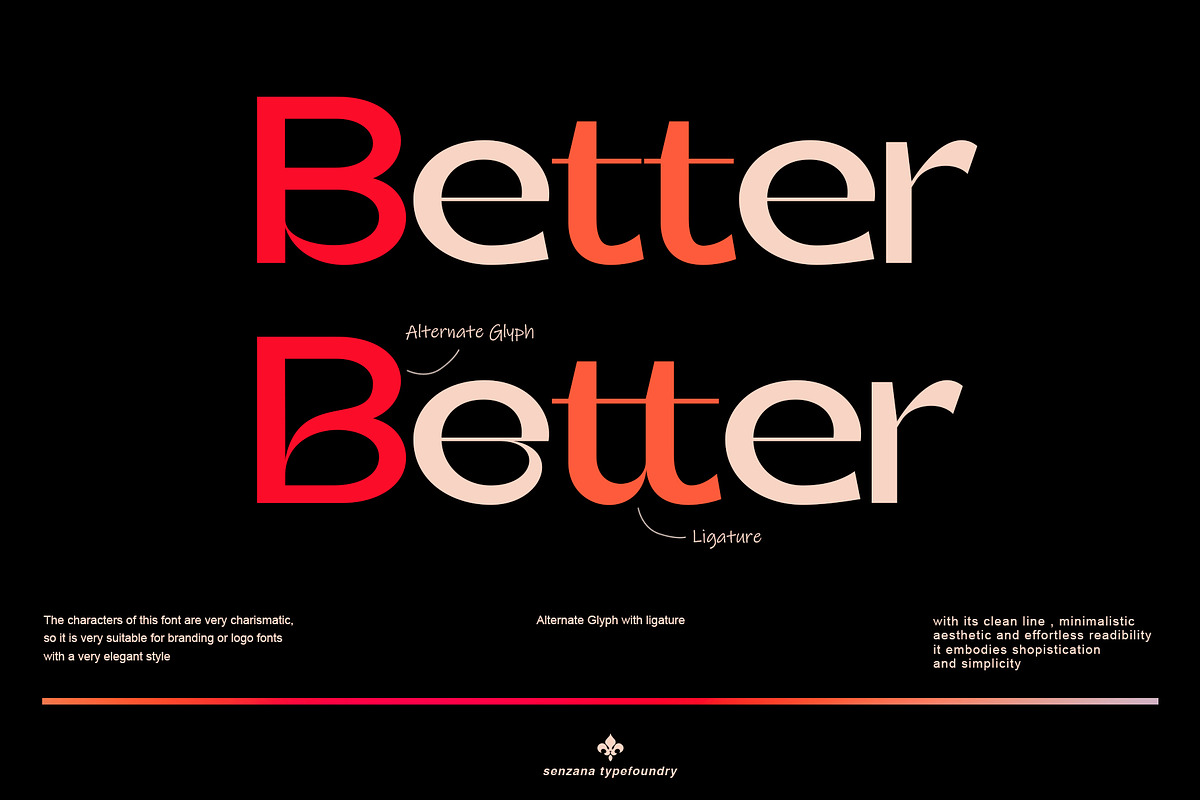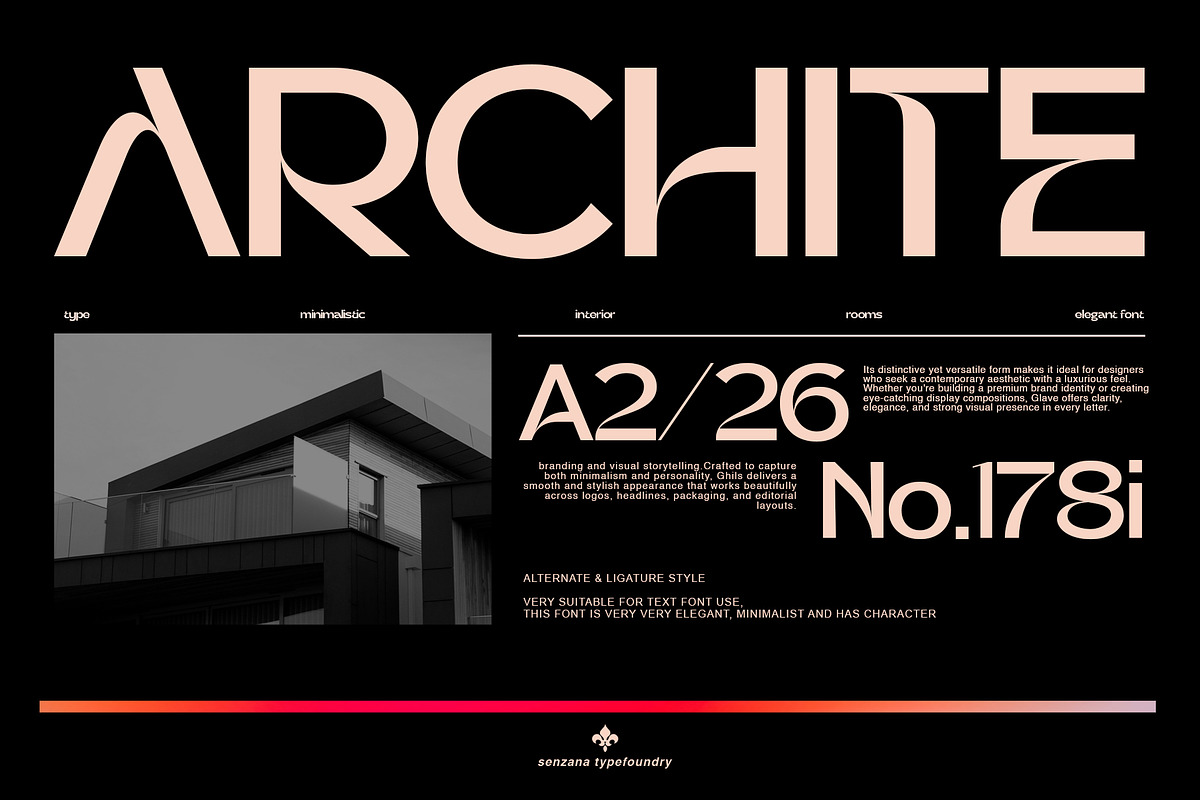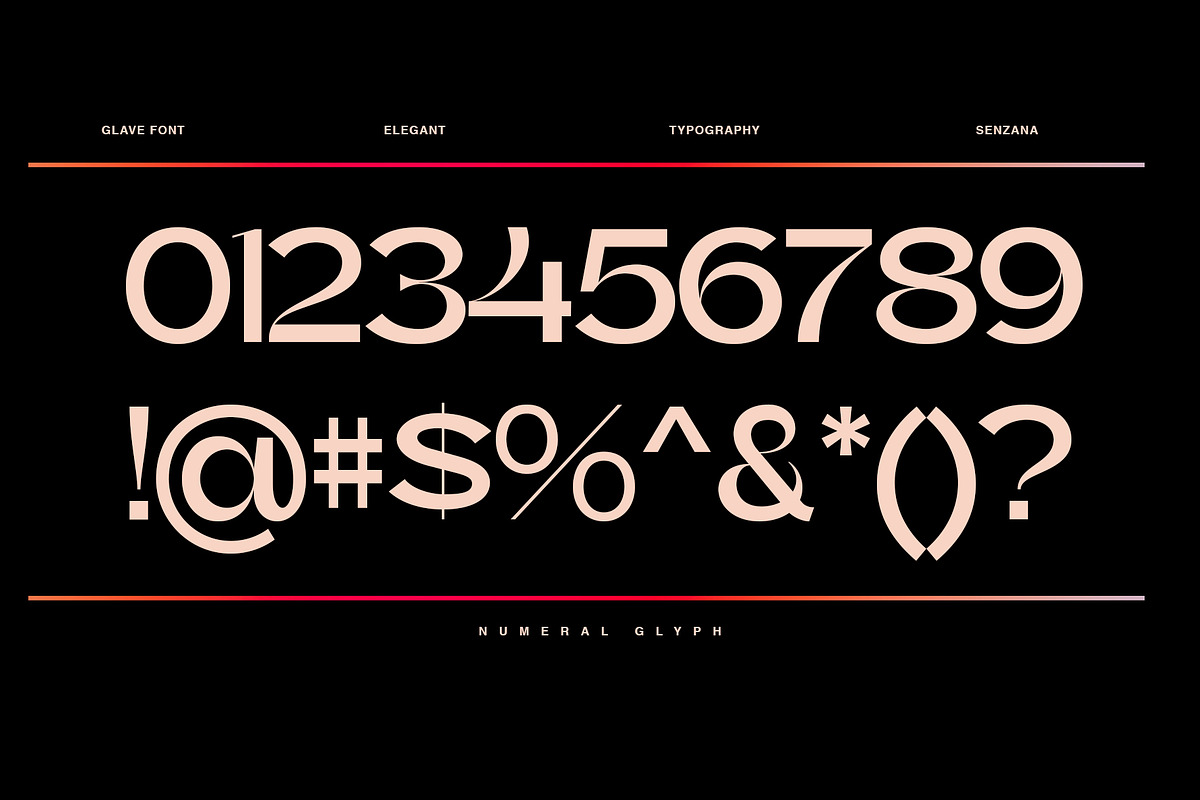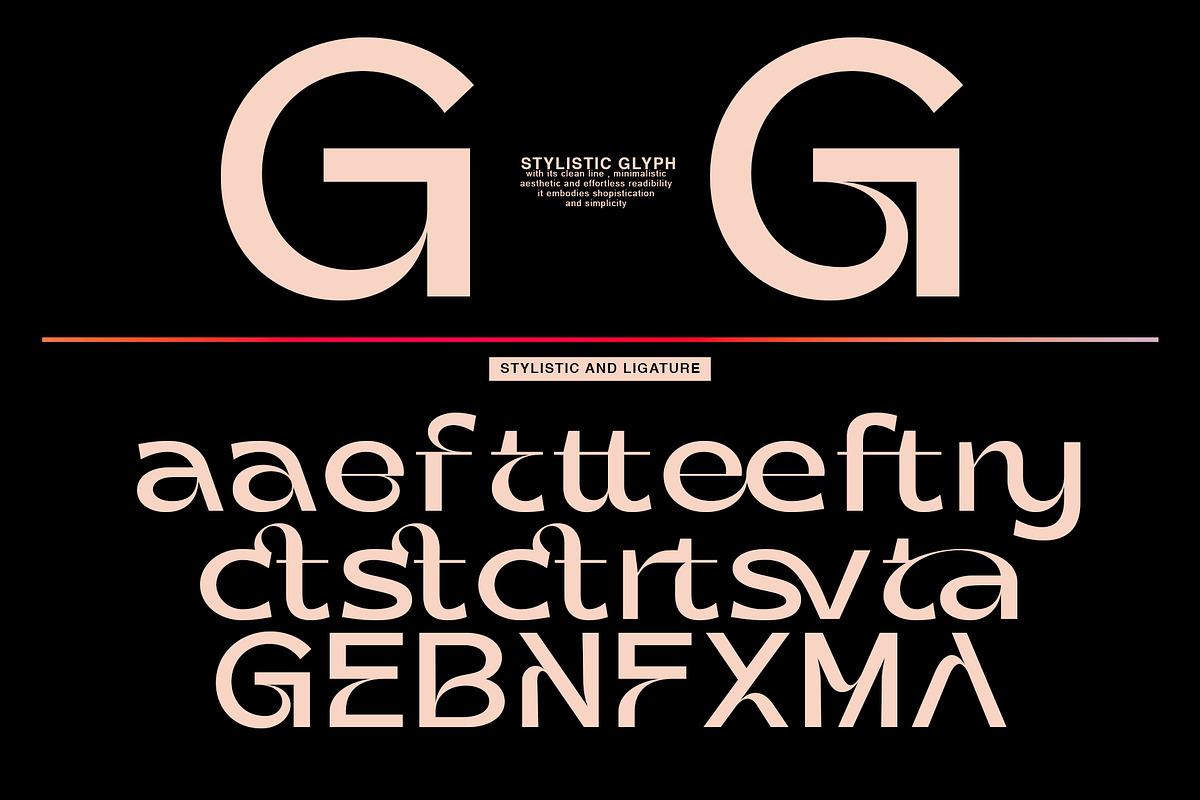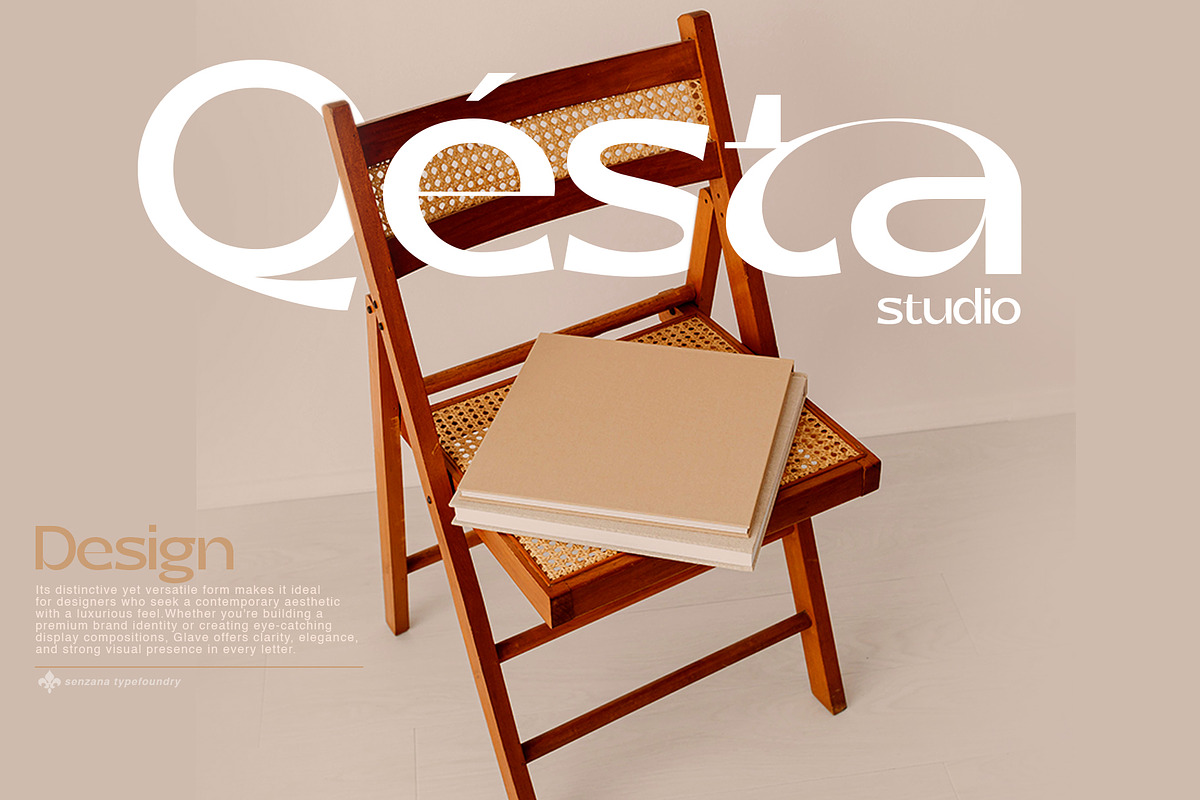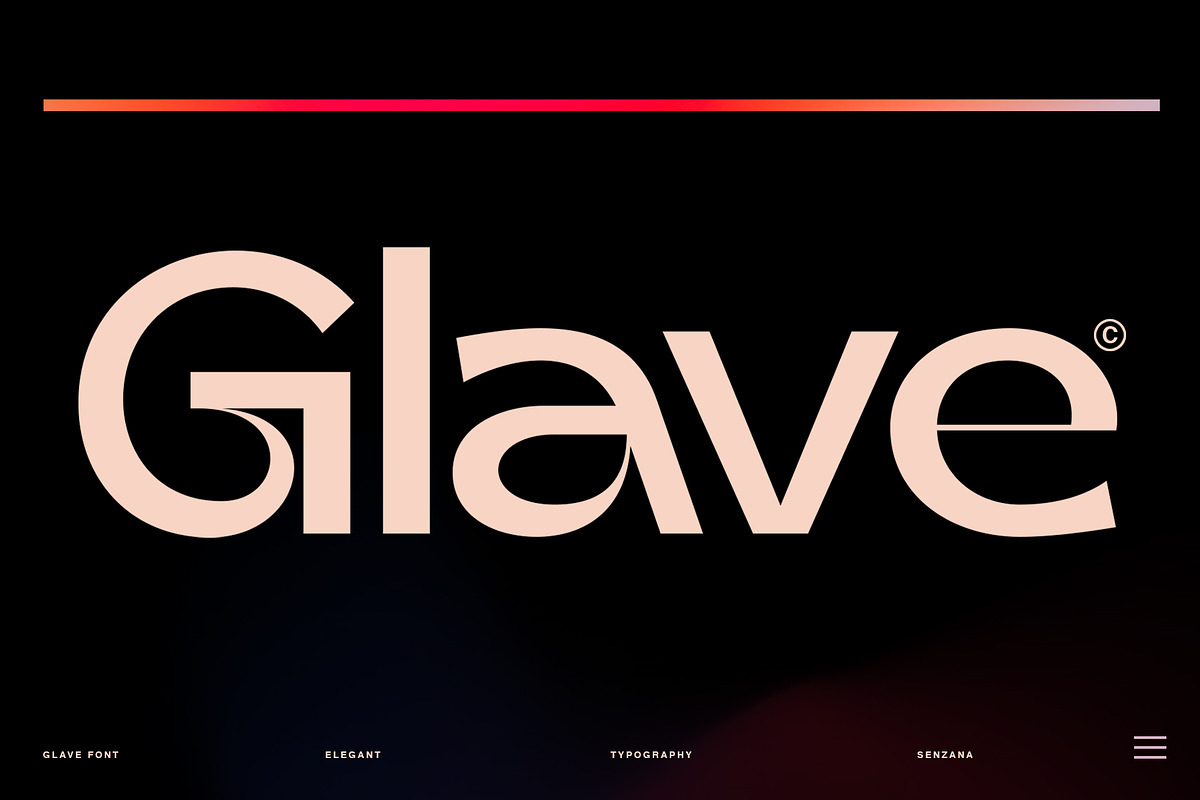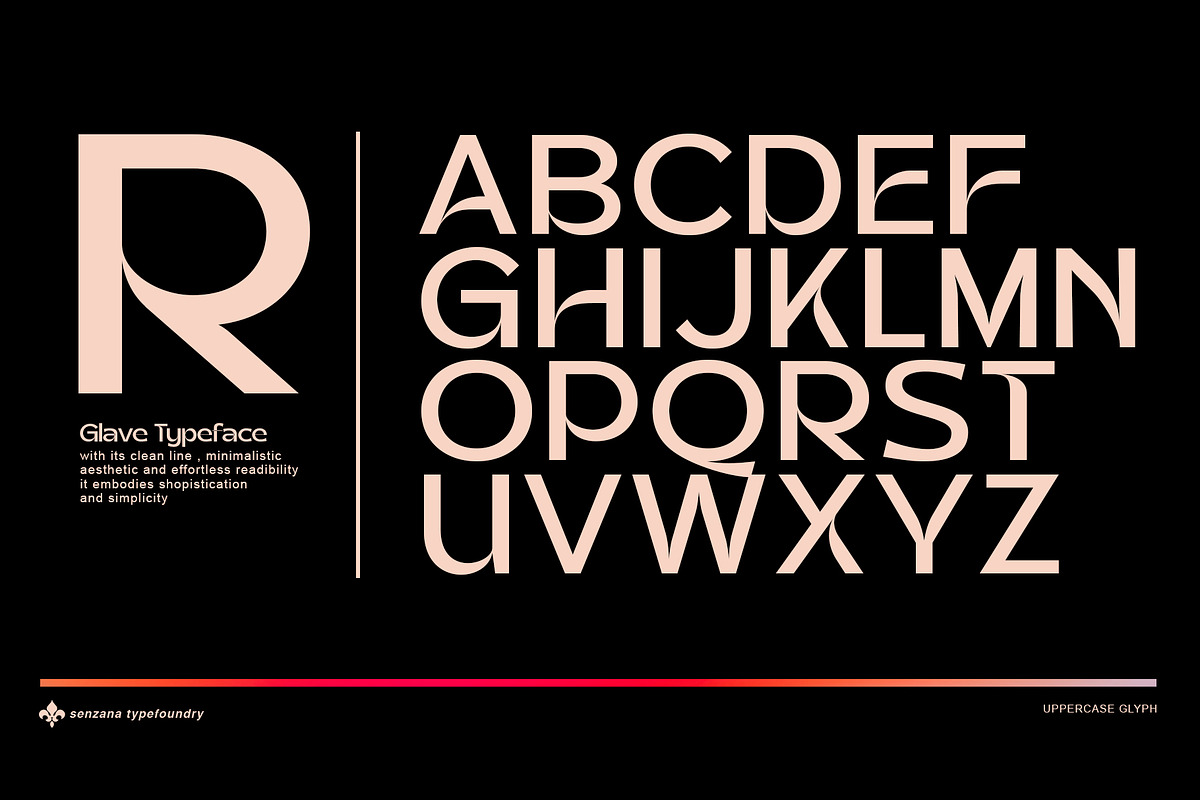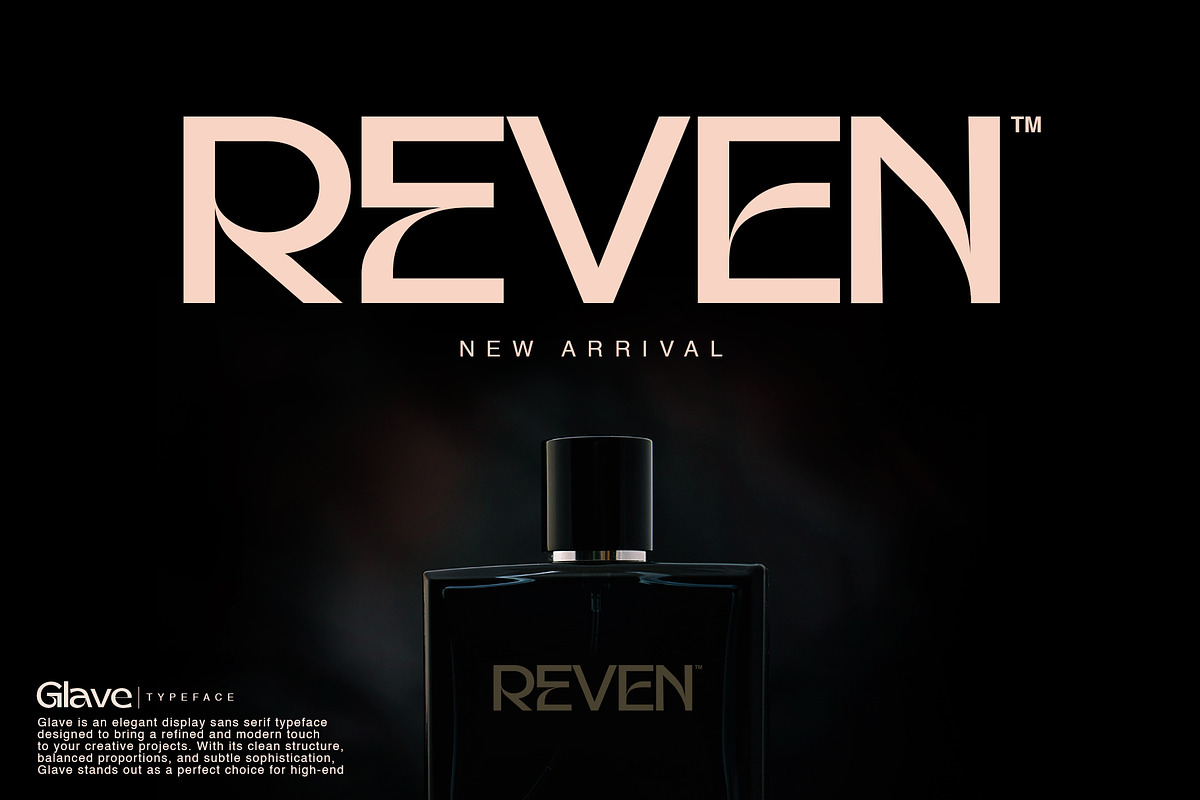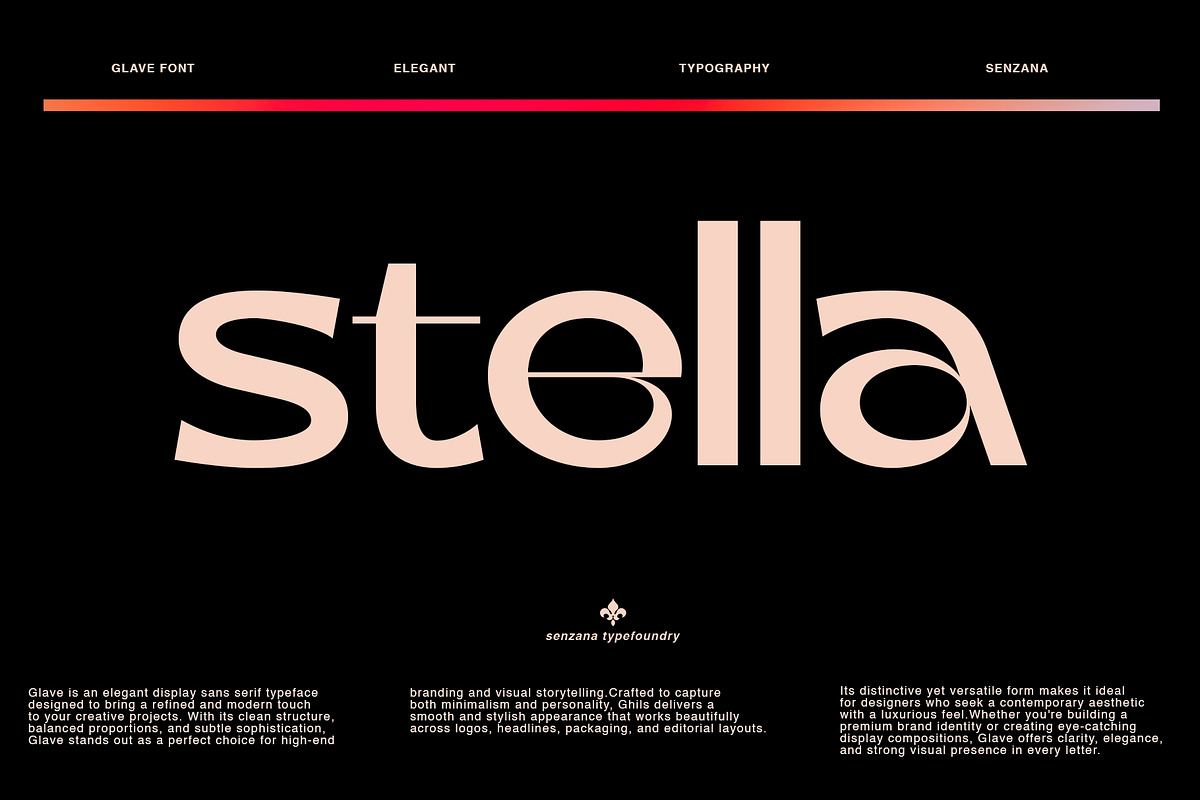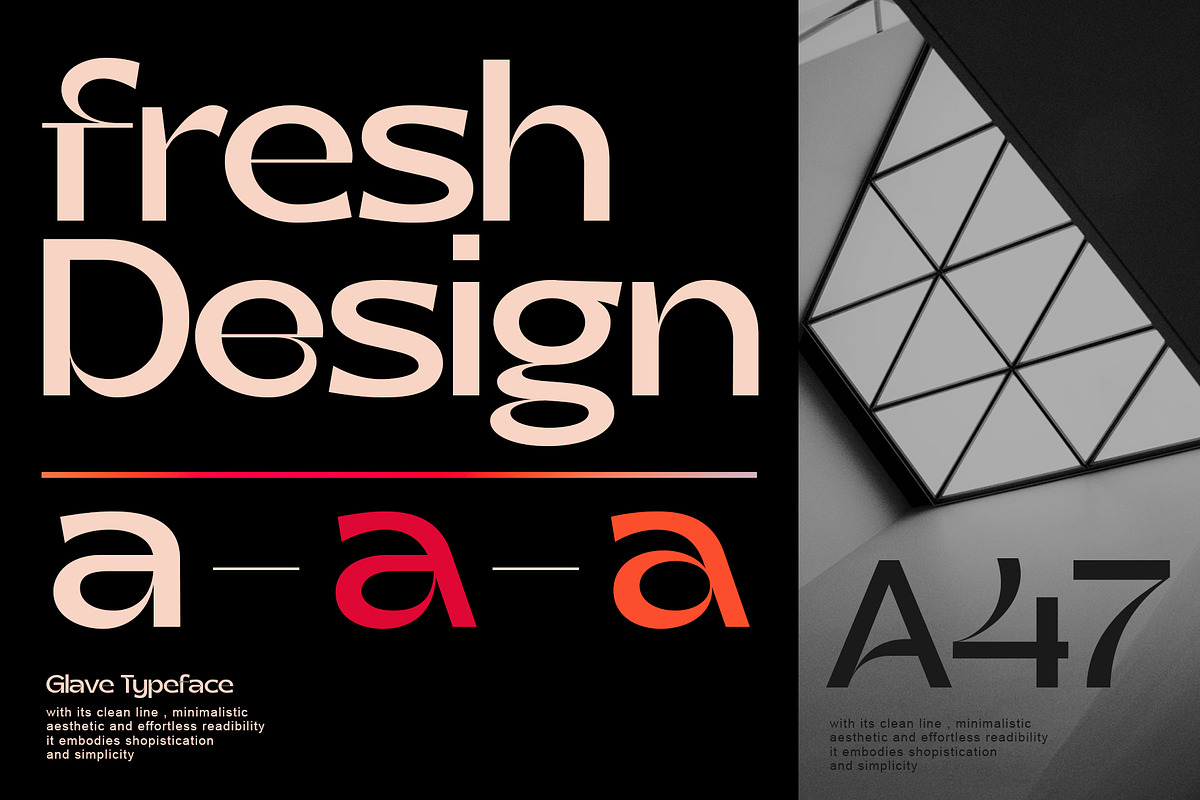
Glave
Glave is a modern display typeface that blends minimalist beauty with a distinctive, refined character. Crafted with clean lines and precise proportions, it delivers an elegant presence without excess—perfect for brands that aim to appear premium, sophisticated, and confidently unique.
Every letter in Glave is more than just a shape—it’s a visual statement. Its subtle stylistic glyphs and thoughtfully designed ligatures offer high flexibility, allowing you to create exclusive and standout typography. This is a font that is not only read, but felt.
Perfect for a wide range of design needs, including:
- Premium branding & logos
- Editorial and magazine layouts
- Fashion & beauty campaigns
- High-end packaging
- Eye-catching social media visuals
Glave strikes the perfect balance between modernity and timeless aesthetics—making every word feel more valuable.
Make your design speak with elegance. Make it Glave.